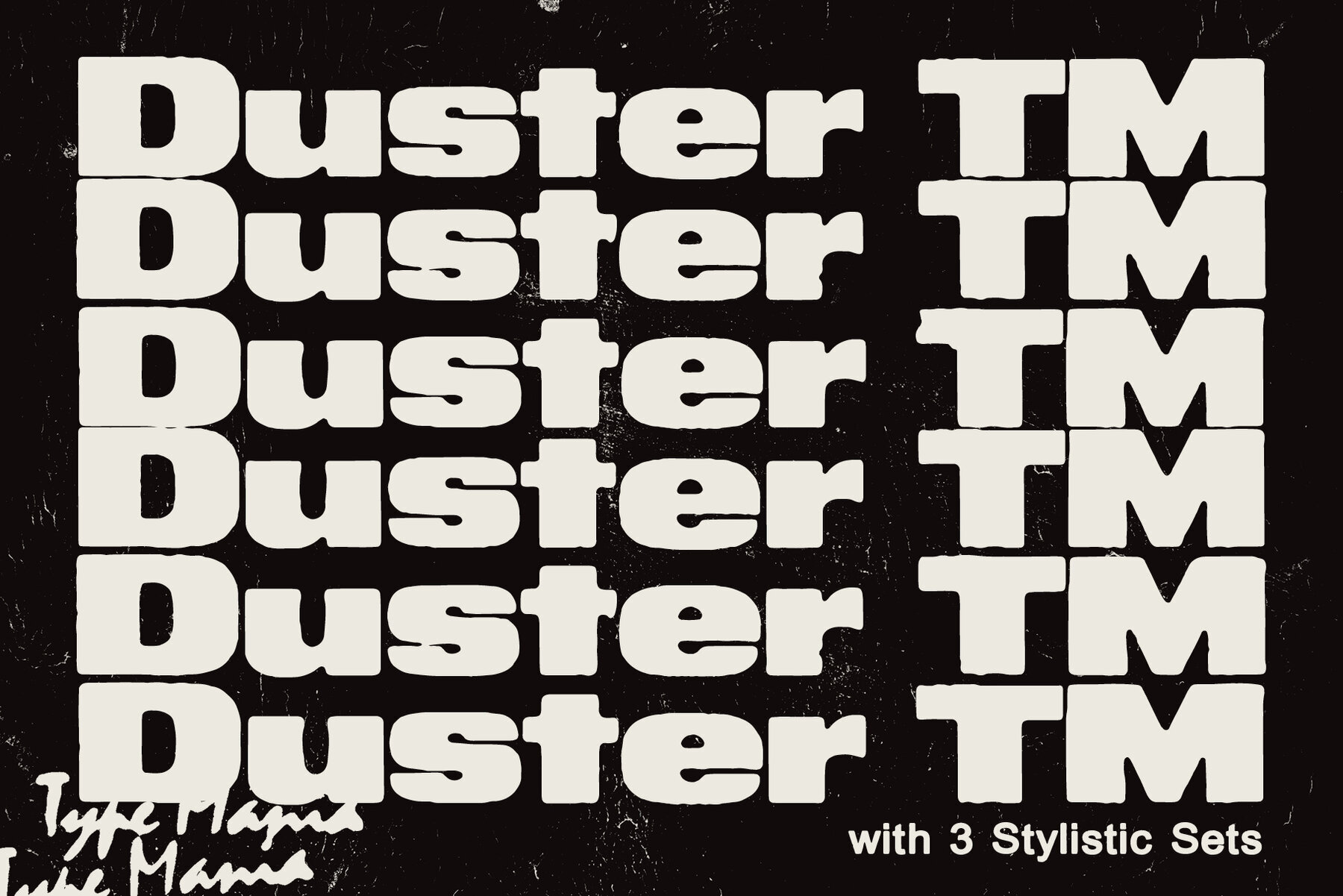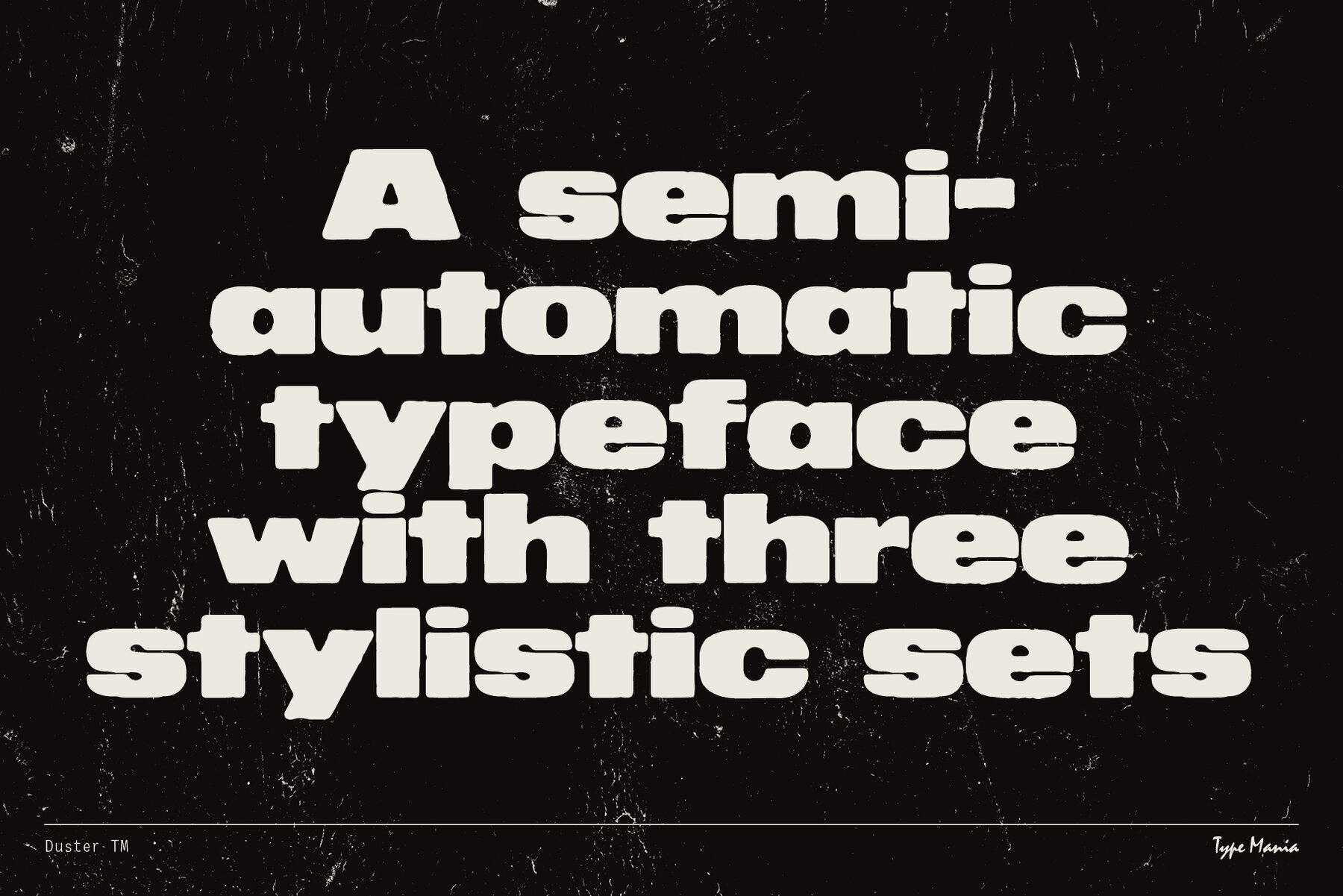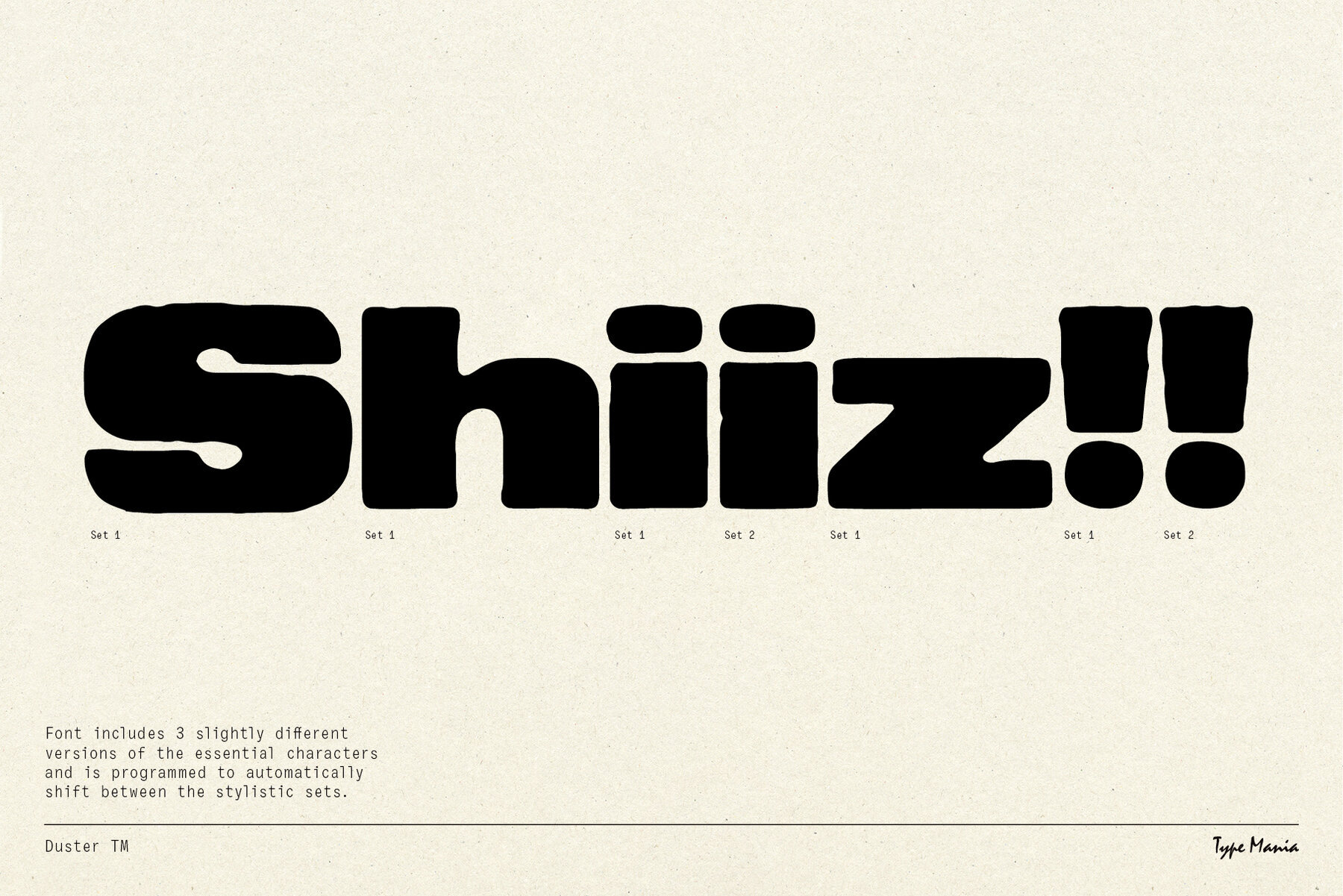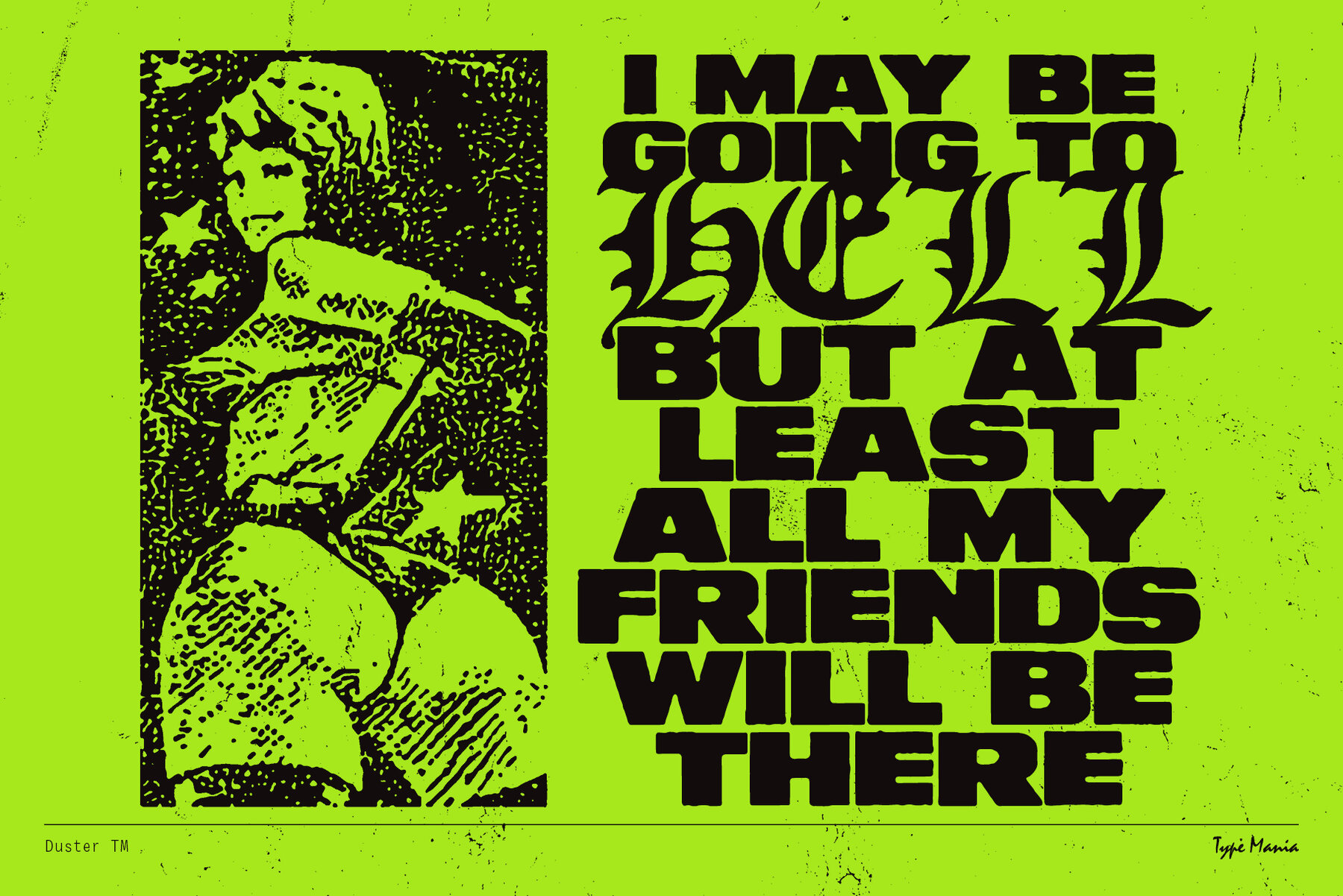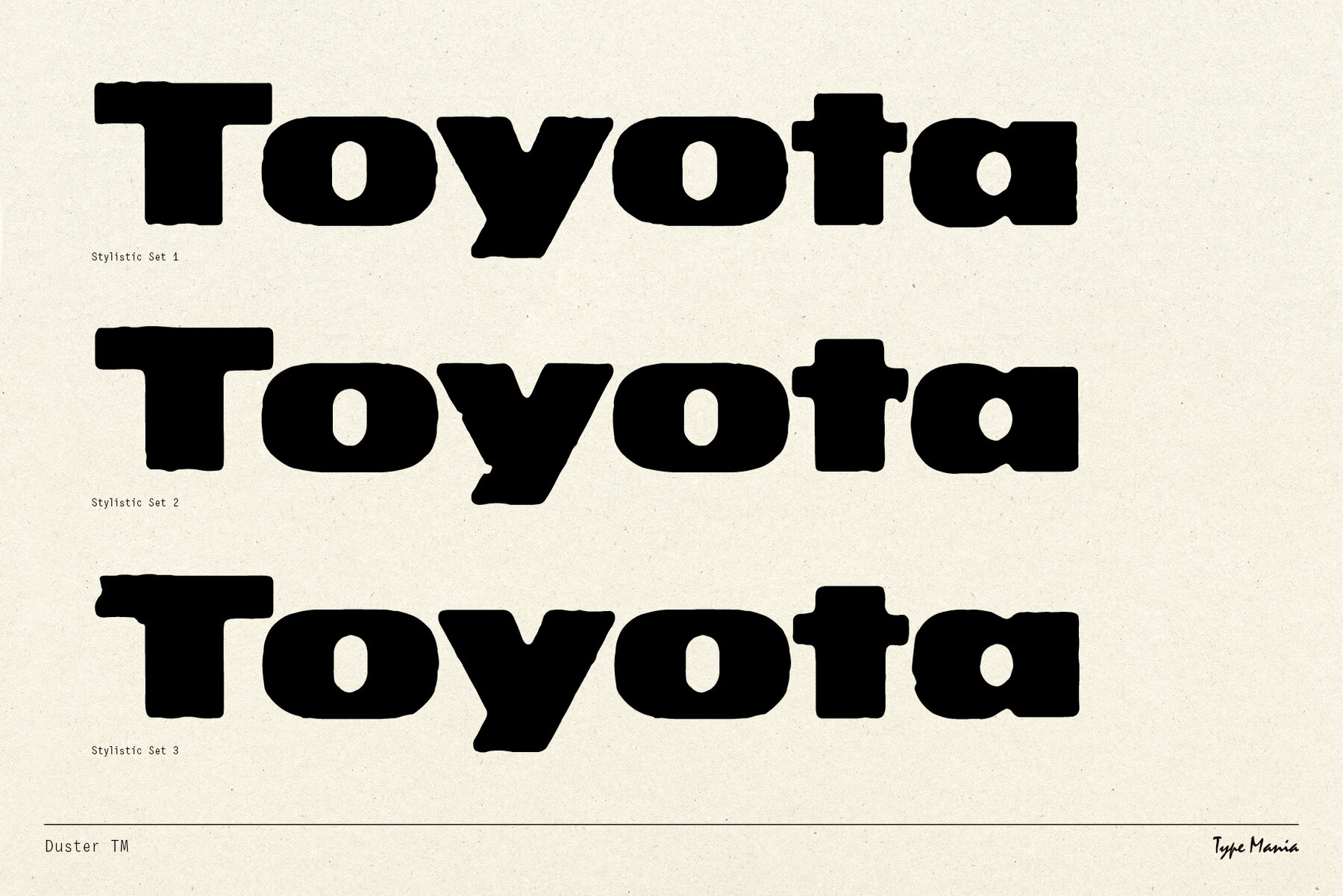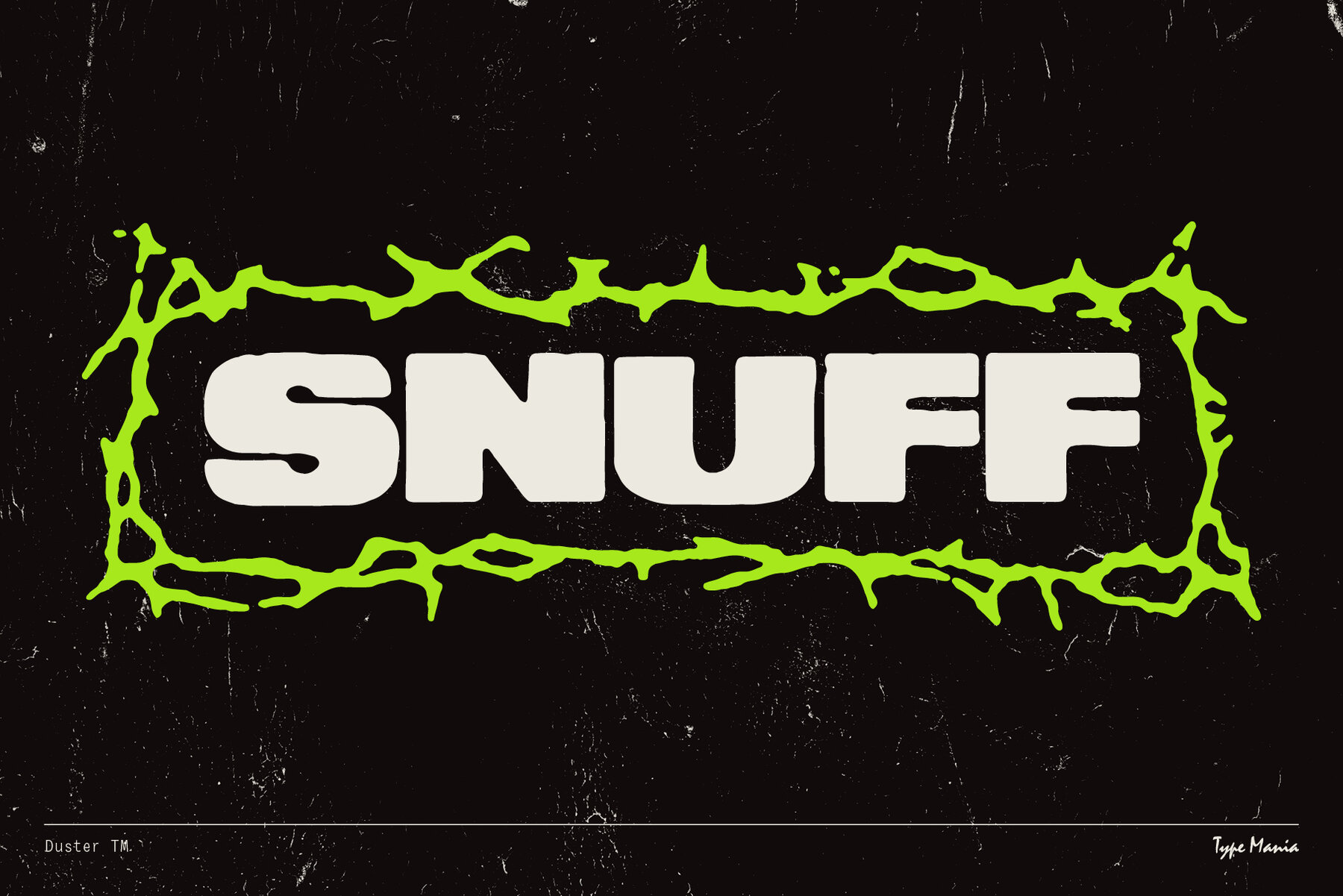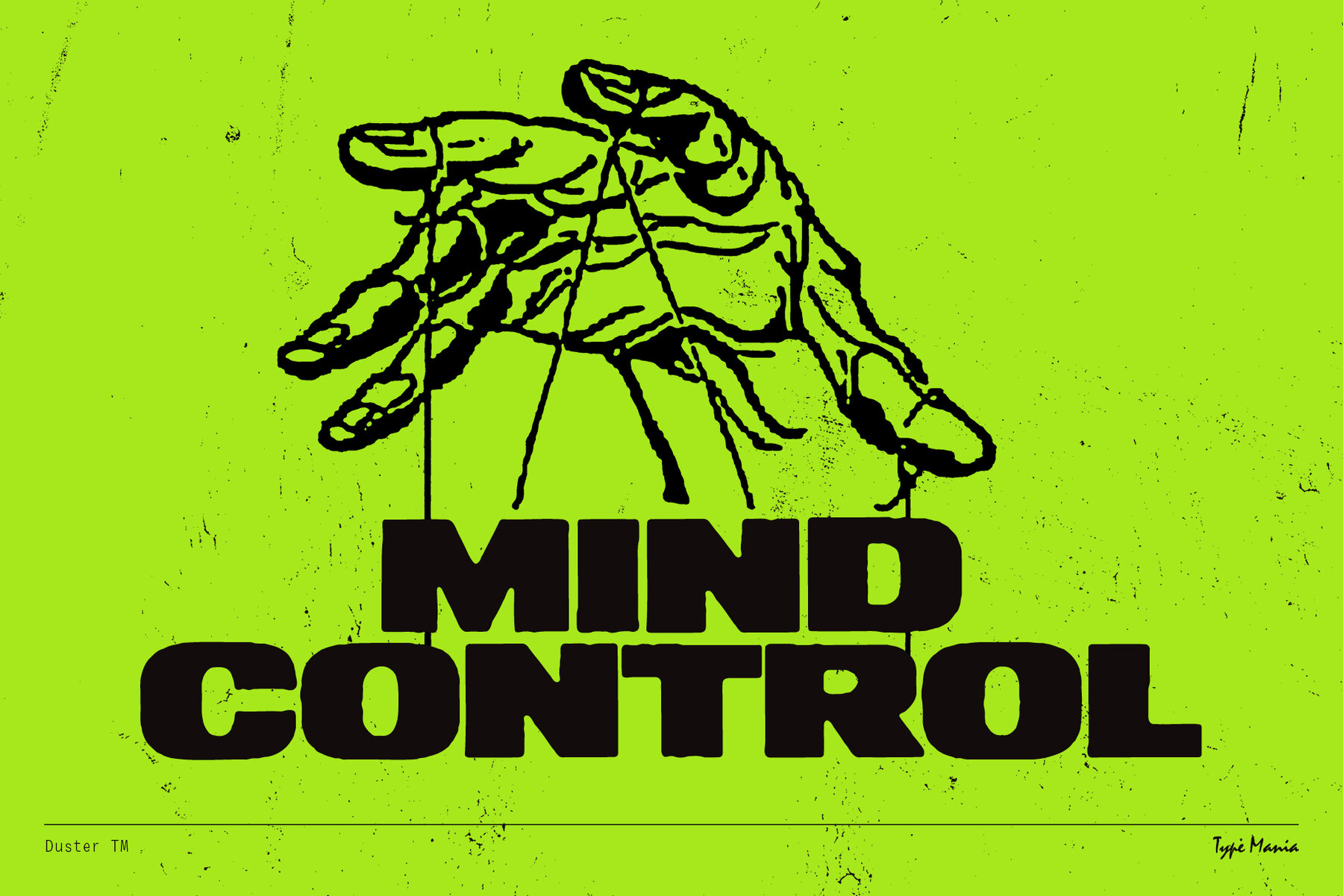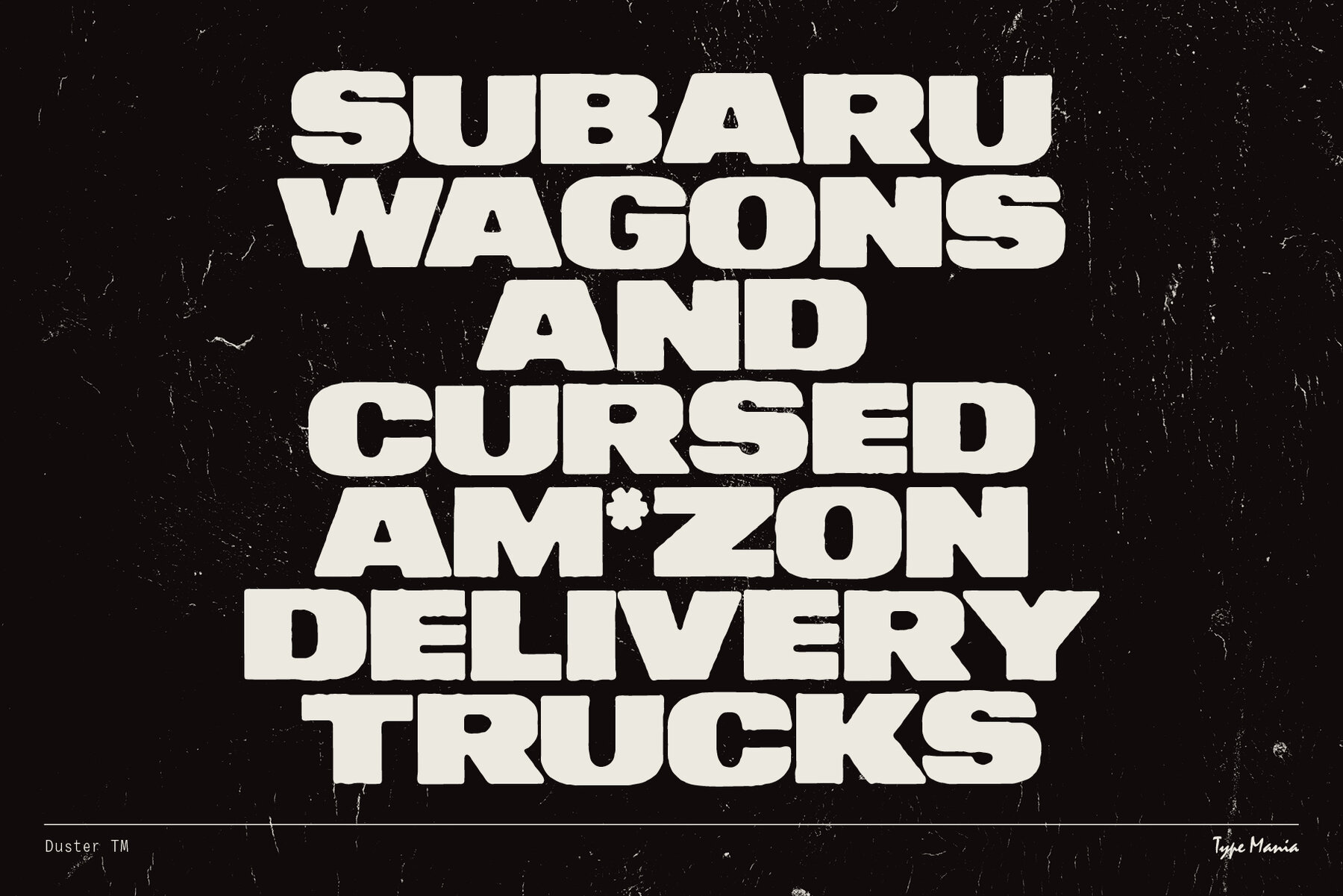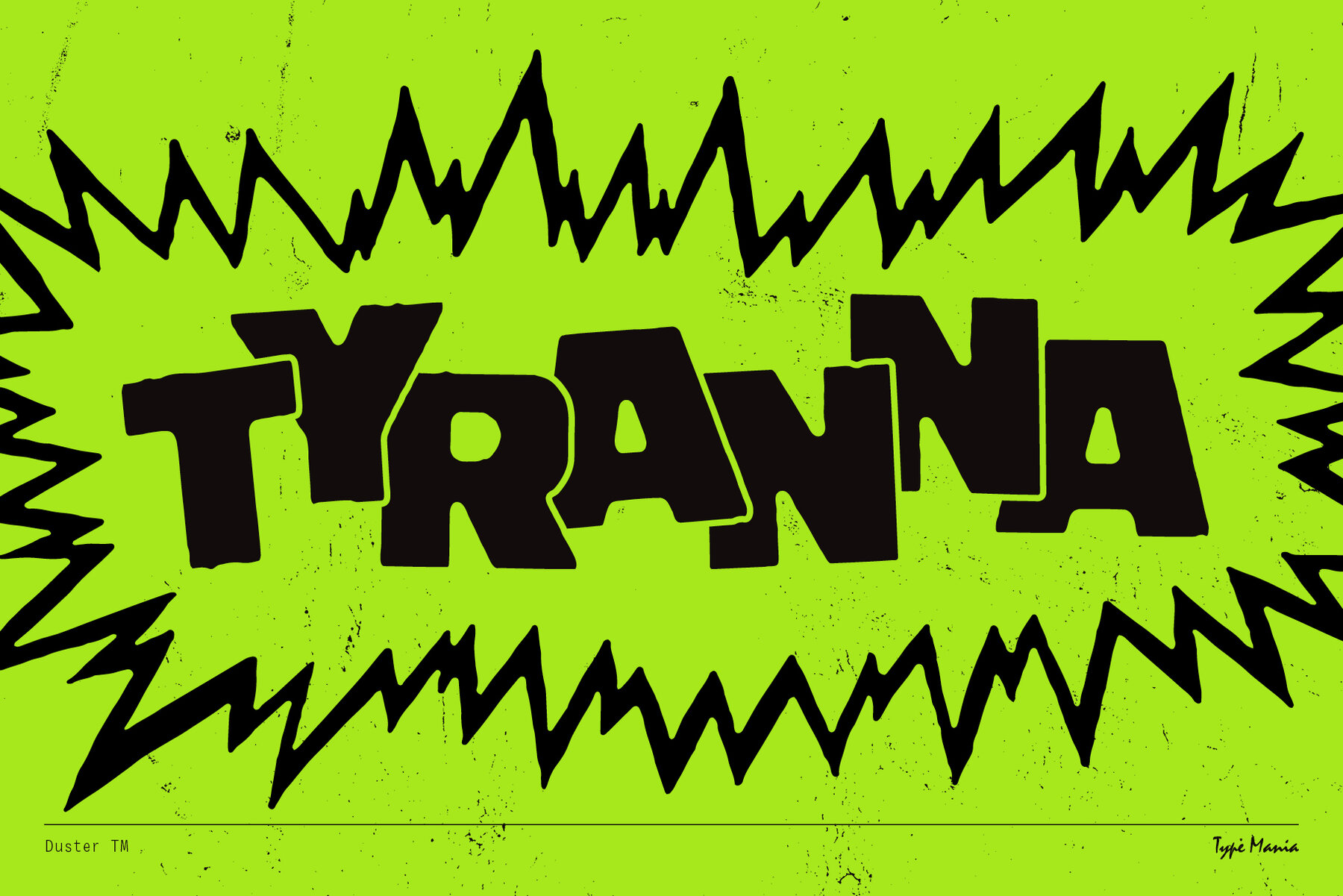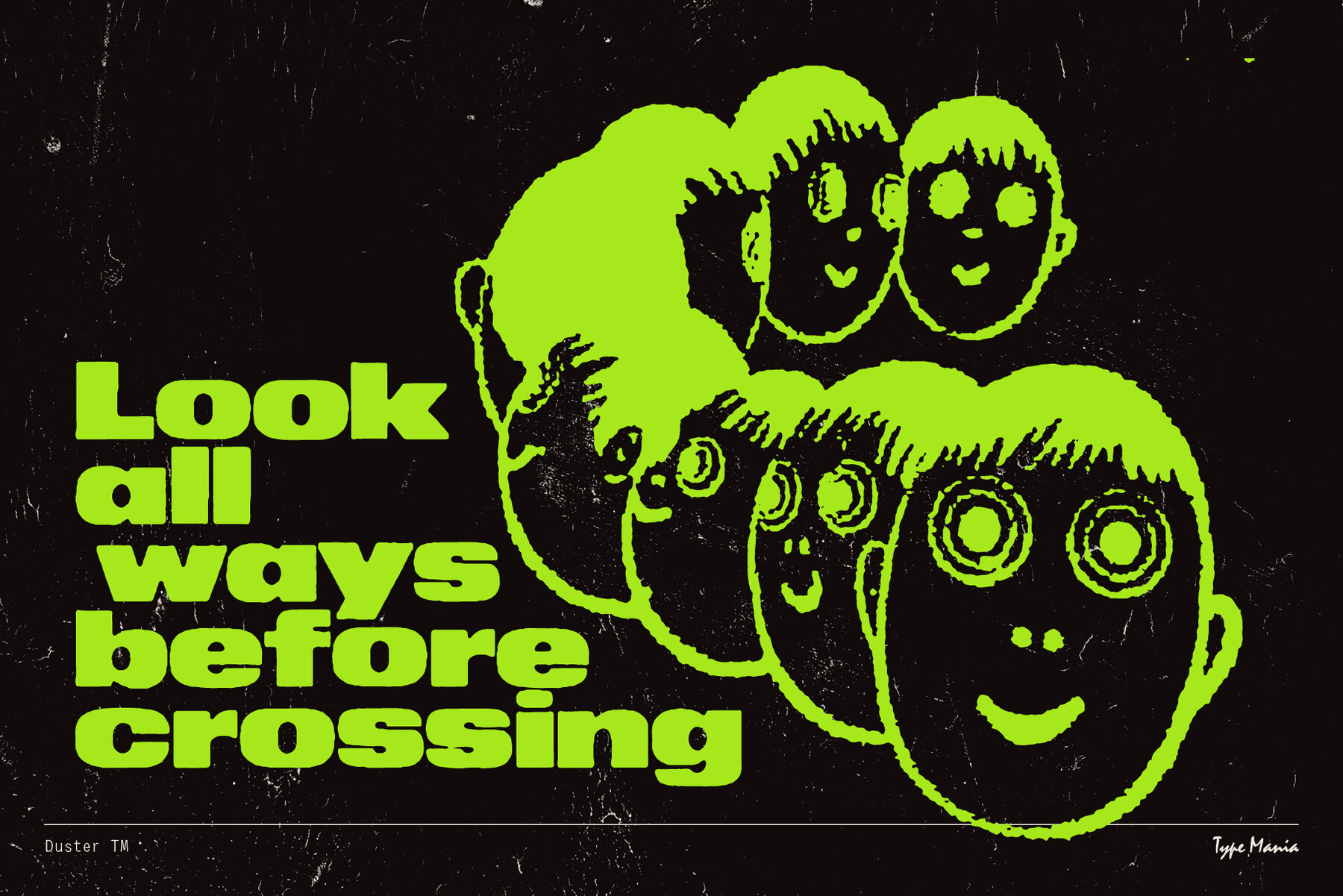
Duster TM Font
Duster TM Regular
With its weathered, worn-in look, Duster TM adds a gritty vibe to any project, be it a flyer for an undergroud rave event or social media campaign. With 3 stylistic sets you can create dynamic layouts at e-z. Get rugged, get bold, get Duster TM today. OpenType features